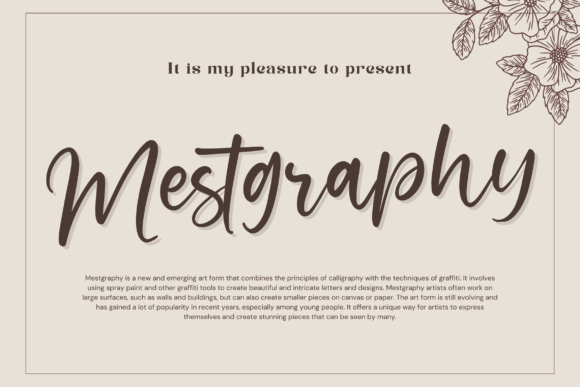
Embark on a typographic voyage with Mestgraphy, an innovative font family that harmoniously blends the art of calligraphy with the raw energy of graffiti. Crafted by the visionary artist byemalkan, Mestgraphy is a captivating fusion of tradition and modernity. Let your words dance across the page or screen with Mestgraphy's meticulously designed script. Each letter is a masterpiece, exhibiting the delicate elegance of calligraphy and the bold, free-flowing spirit of graffiti. Whether you're a blogger, a designer, or simply someone who appreciates the beauty of typography, Mestgraphy is your gateway to creative expression.
Imagine your words taking on a new life, imbued with the vibrant energy of Mestgraphy. This font family is a symphony of creativity, echoing the bustling streets of Chicago, where art and culture collide. Its dynamic lines and organic curves evoke a sense of urban vitality, capturing the essence of the Windy City. Unleash your inner storyteller and let Mestgraphy bring your words to life, transforming your digital or print creations into mesmerizing spectacles.
Mestgraphy is more than just a font; it's an experience. Its intricate details and expressive strokes invite you to explore the depths of your imagination. Let your designs soar to new heights as you experiment with this versatile font family. Create logos that exude a sense of urban chic, design social media posts that pop with personality, or craft digital art that captivates and inspires. With Mestgraphy, the possibilities are limitless.
Don't settle for ordinary fonts that blend into the background. Embrace the audacity of Mestgraphy and watch as your words transform into works of art. It's the perfect choice for those who dare to stand out, to make a statement, and to leave a lasting impression. Join the ranks of creative pioneers who have discovered the magic of Mestgraphy. Let your words dance, your designs flourish, and your imagination run wild.